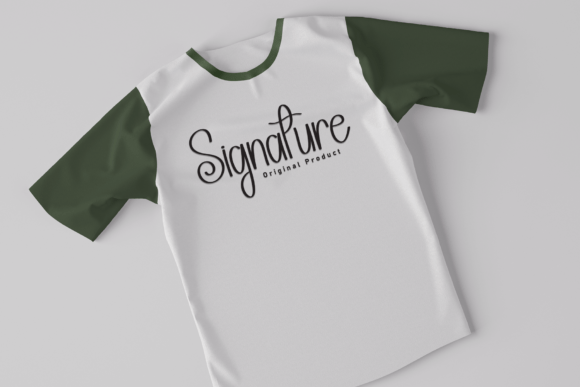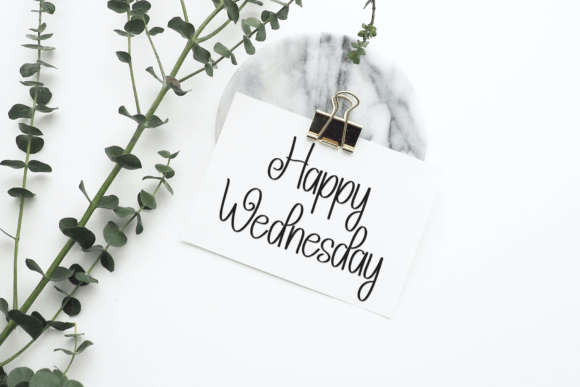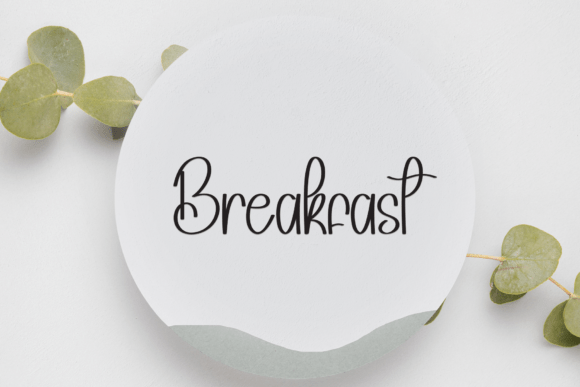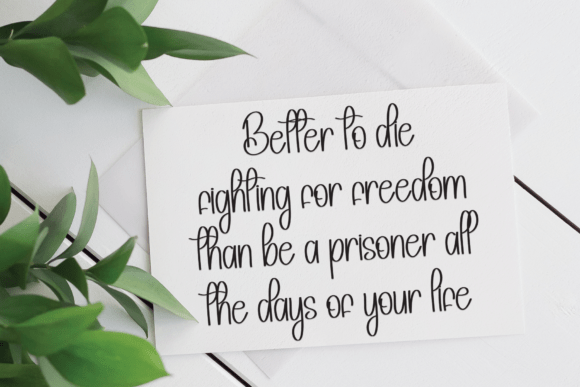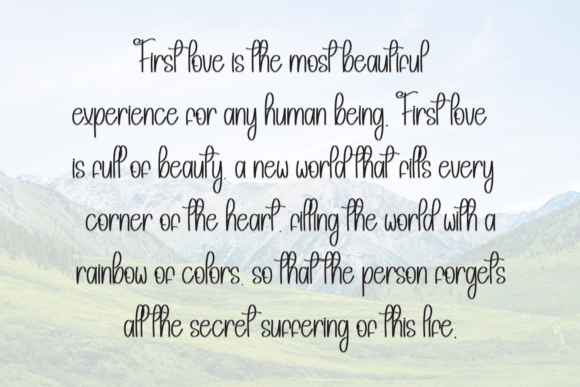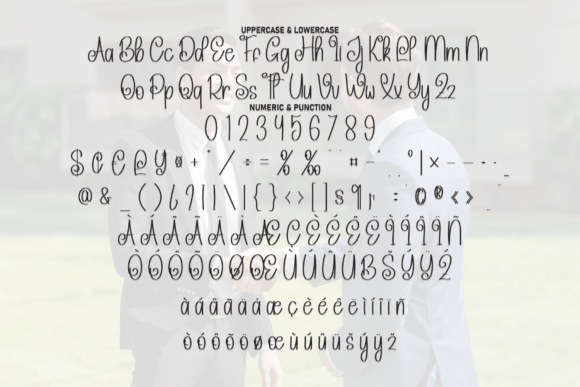
Discover the Charm of Greeting Font: Elevate Your Designs with Whimsy and Elegance
Are you on the hunt for a font that injects a dose of radiance and lighthearted elegance into your design projects? Look no further than the captivating Greeting Font. This sprightly handwritten script font is designed to infuse your creations with a heartwarming dash of youthful vivacity, making it perfect for a variety of applications, from enchanting wedding invitations to appealing greeting cards.
The Essence of Greeting Font
Greeting Font embodies the perfect blend of whimsy and sophistication. Its endearing allure and zestful spirit make it an ideal choice for designers and crafters seeking to add a touch of joyful wonder to their projects. Whether you’re working on a wedding invitation, a greeting card, or any other design endeavor, this font is your trusted ally in weaving design enchantment.
With Greeting Font, the possibilities are endless. Its versatility and charm make it suitable for a wide range of design projects, including:
- Wedding Invitations: Create enchanting and romantic wedding invitations that set the tone for a memorable celebration.
- Greeting Cards: Design appealing and heartfelt greeting cards for various occasions, from birthdays to anniversaries.
- Stationery: Add a touch of elegance and whimsy to your stationery, making it perfect for personal or business use.
- Digital Art: Incorporate Greeting Font into your digital art projects, such as illustrations, graphics, and more.
What Makes Greeting Font Special?
So, what sets Greeting Font apart from other fonts? Here are a few key characteristics that make it a standout choice:
- Handwritten Script: Greeting Font boasts a beautiful, handwritten script that exudes warmth and personality.
- Youthful Vivacity: This font is infused with a youthful energy that’s perfect for designs that require a playful touch.
- Elegance: Despite its playful nature, Greeting Font also possesses a level of sophistication that makes it suitable for more formal designs.
Tips for Using Greeting Font Effectively
To get the most out of Greeting Font, here are a few tips to keep in mind:
- Pair with Complementary Fonts: Combine Greeting Font with complementary fonts to create visual interest and hierarchy.
- Experiment with Colors: Don’t be afraid to experiment with different colors to find the perfect match for your design.
- Play with Size and Style: Vary the size and style of Greeting Font to add emphasis and create visual flow.
In conclusion, Greeting Font is a versatile and charming handwritten script font that’s perfect for designers and crafters seeking to add a touch of whimsy and elegance to their projects. With its heartwarming dash of youthful vivacity and endearing allure, this font is sure to become a trusted ally in your design endeavors. So why wait? Discover the charm of Greeting Font today and elevate your designs to new heights!
Whether you’re a seasoned designer or a crafty DIY enthusiast, Greeting Font is an excellent addition to your font library. Its ability to evoke emotions and create a sense of connection makes it an invaluable resource for anyone looking to create visually delightful masterpieces.